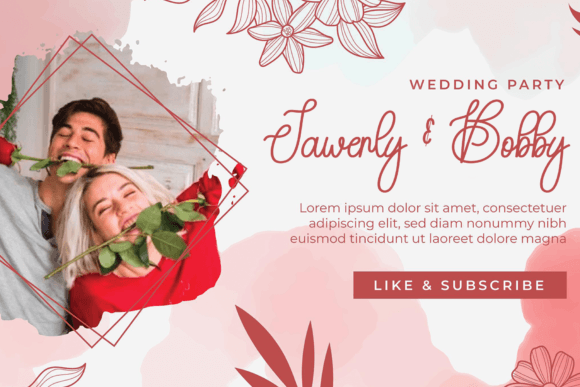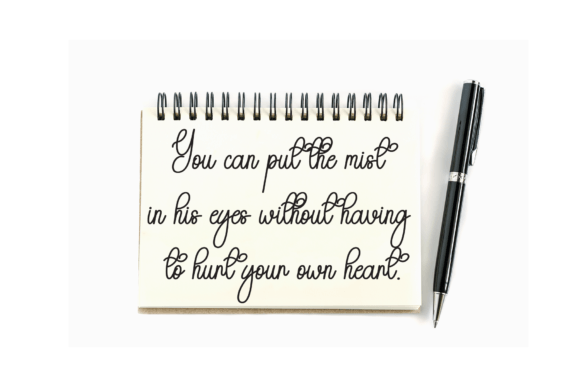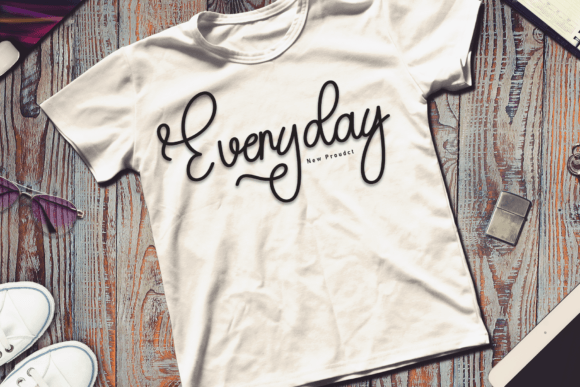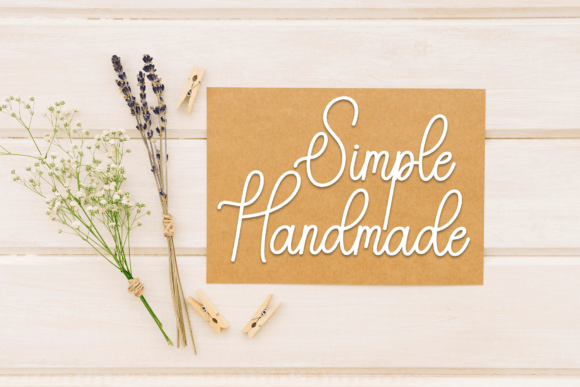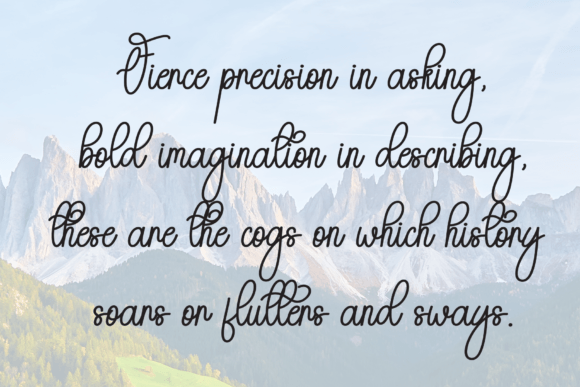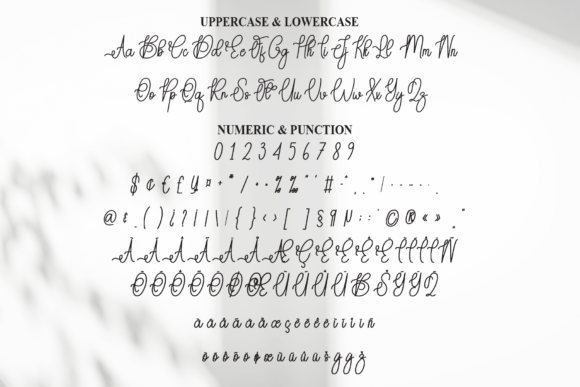
Discover the Delightful Charm of Adelya Font
Imagine you’re working on a project, pouring your heart and soul into every detail, but something’s missing. The design feels flat, and you can’t quite put your finger on what’s lacking. That’s when I discovered Adelya Font, a uniquely crafted typeface that adds a touch of personality and warmth to any design. In this article, we’ll dive into the world of Adelya Font, exploring its features, uses, and everything in between.
A Moment of Design Frustration
I recall working on a wedding invitation project, struggling to find the perfect font that would capture the couple’s playful and romantic vibe. I tried font after font, but none seemed to fit the bill. That’s when a friend recommended Adelya Font, and I was blown away by its delightful charm. The font’s handwritten display style and sweet, friendly tone instantly resonated with me, and I knew I had found the perfect fit for the project.
An Honest Review of Adelya Font
- ✨ Unique and playful handwritten style that adds a touch of whimsy to designs
- ✅ Easy to read and understand, even in small sizes
- 💕 Friendly and approachable tone that suits a wide range of projects
- 🎉 Extensive character set, including OpenType features and glyphs
While Adelya Font is an excellent choice for many projects, there are a few things to keep in mind:
- 🤔 Limited use in formal or corporate designs, as the font’s playful style may not be suitable for these contexts
The Designer Inspiration Behind Adelya Font
Adelya Font was designed with the intention of creating a unique and playful typeface that would add a touch of personality and warmth to designs. The font’s creator drew inspiration from classic handwritten fonts, infusing them with a modern and whimsical twist. The result is a font that is both elegant and playful, making it perfect for a wide range of projects.
Q: What type of projects is Adelya Font best suited for?
A: Adelya Font is perfect for projects that require a playful and friendly tone, such as wedding invitations, greeting cards, and social media graphics.
Q: Is Adelya Font available in different languages?
A: Adelya Font supports a wide range of languages, including English, Spanish, French, and more. Please check the font’s character set for specific language support.